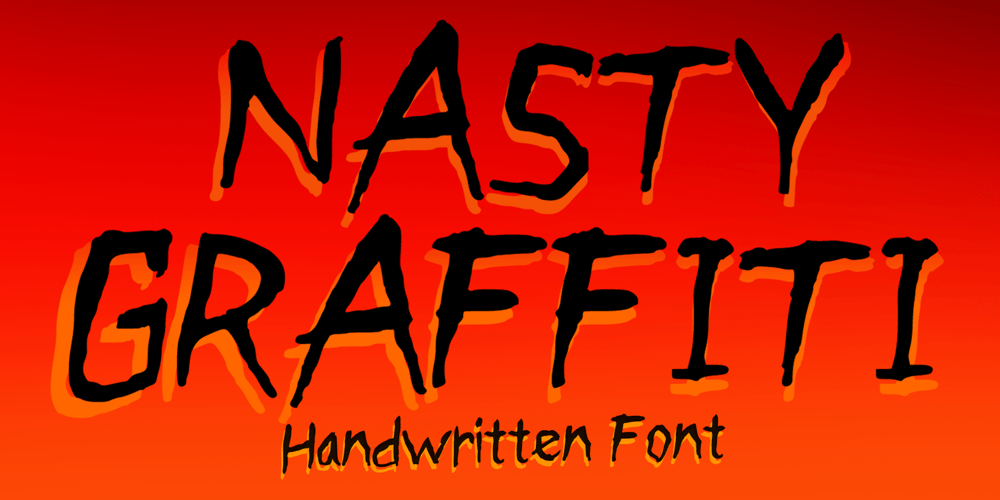
Nasty Graffiti Font Family was designed by Gabriel Valentinus and published by Mvmet. Nasty Graffiti contains 1 styles and family package options. Nasty Graffiti is a very cool graffiti tag font, inspired by California street art movement scenes mixed with horror and Halloween vibes. It will elevate a wide range of design projects to the highest level. You can use this font for many design ideas such as stickers, t-shirt designs, amazing logo designs, magazine or book covers, comics, cartoon drawings, and many more. This font will add a cool touch to your designs!